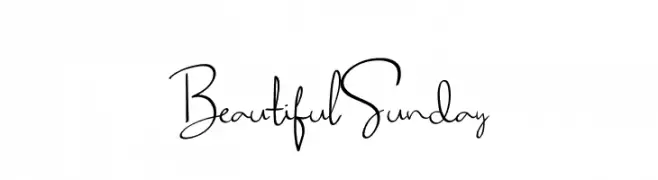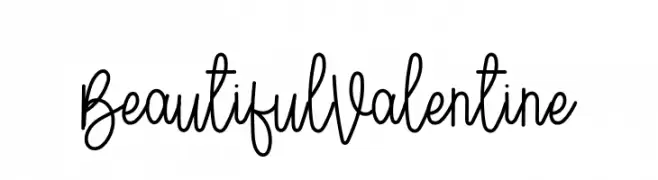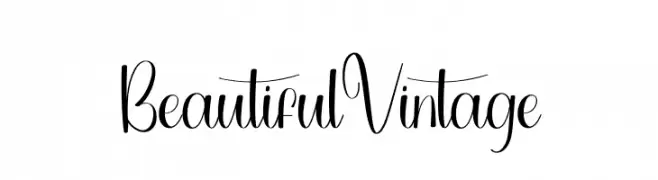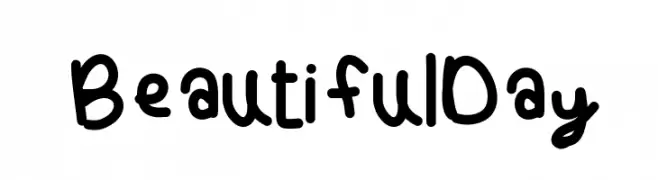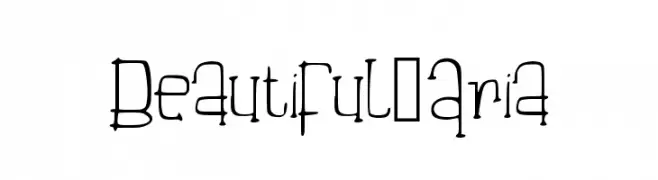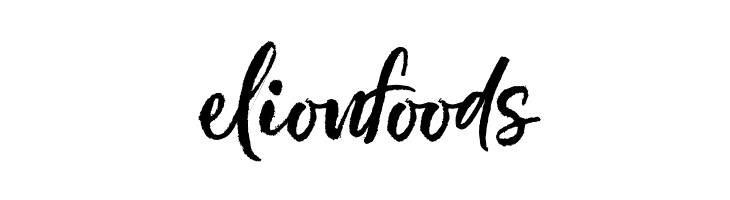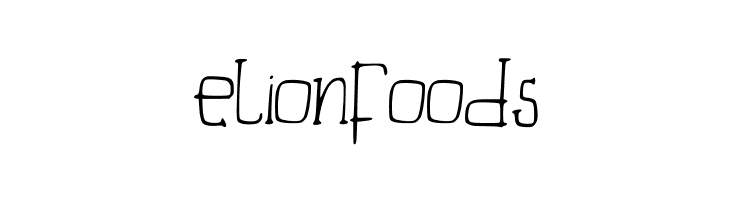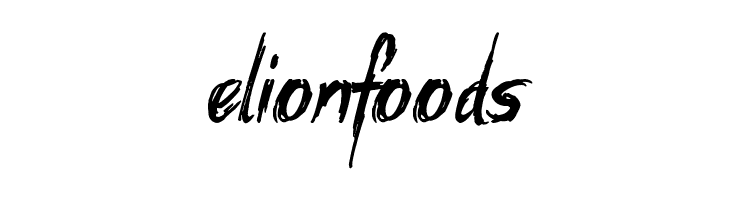
An elegant script font with flowing, interconnected letters and ornate flourishes.
Casual handwritten script with rounded, playful forms.
A playful, handwritten font with a whimsical and dynamic style.
A playful, handwritten cursive font with a romantic and elegant style.
A bold, jagged font with an edgy, brush-like appearance.
An elegant and decorative script font with intricate swirls and flourishes.
A vintage-inspired script font with elegant curves and flowing lines.
An artistic, hand-drawn font with elongated, narrow letterforms and a whimsical style.
A modern, looping line font with a bold, geometric style.
A bold, brush-style font with a lively and artistic flair.